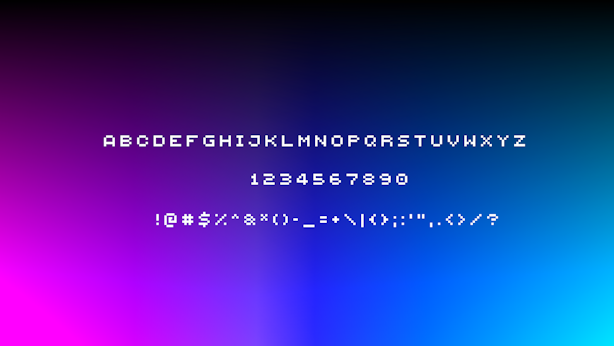
This simple texture pack replaces Minecraft’s default font with the Minecraft Five font, giving your game a clean, modern look. The Minecraft Five font is widely used across many modded servers and community projects, making your in-game text feel familiar and polished while keeping the overall vanilla style intact.
This pack is also inspired by qrafty's capitalized font